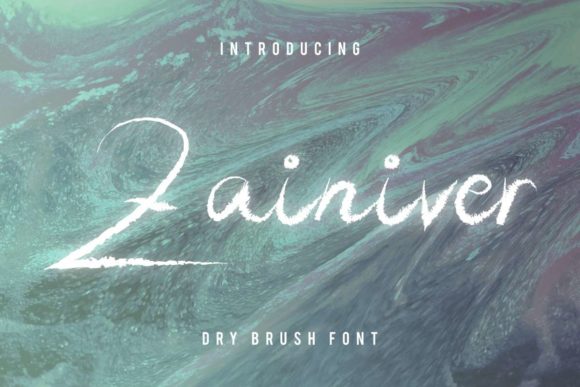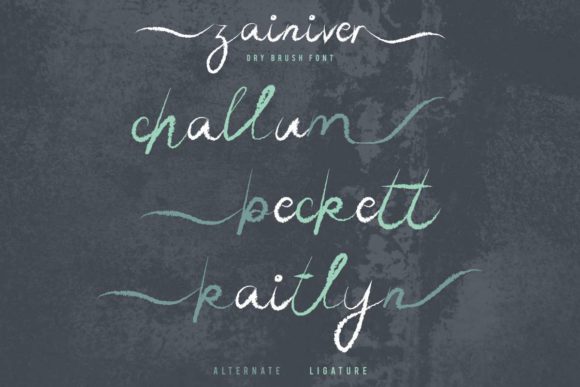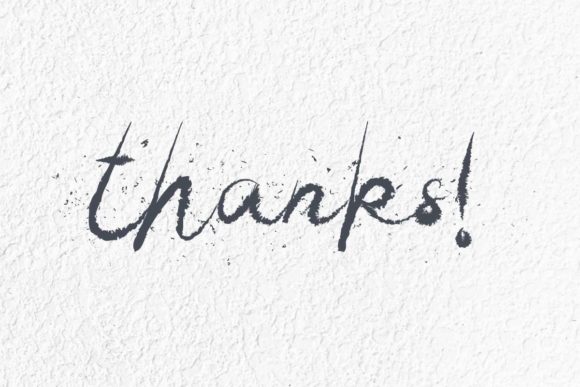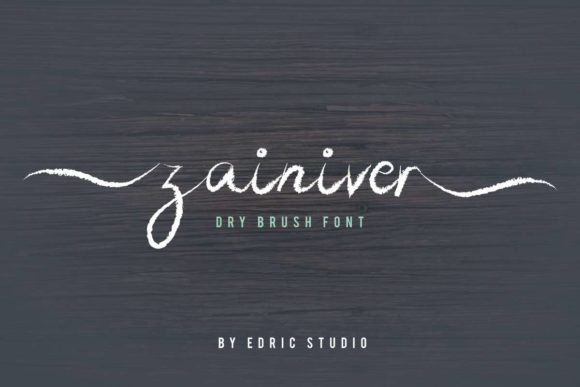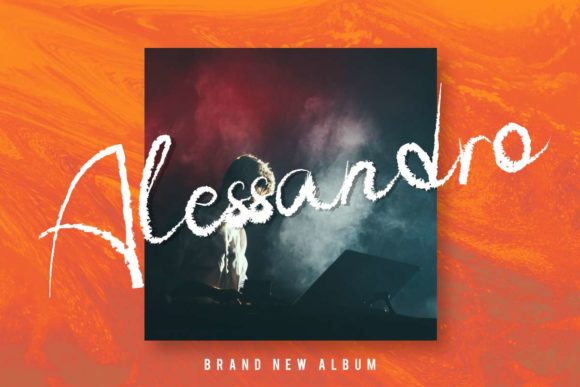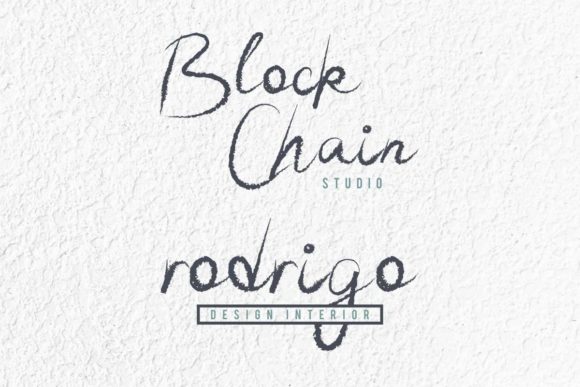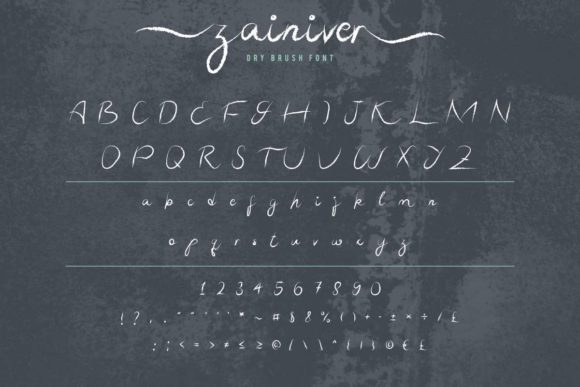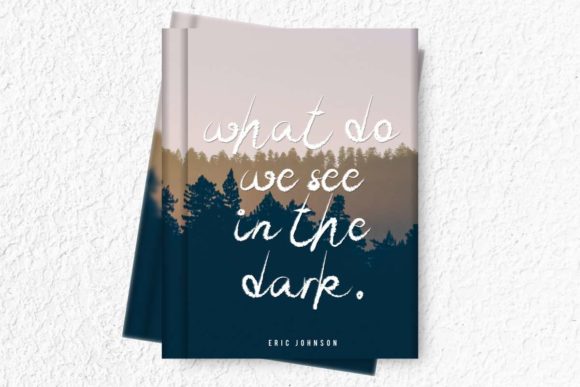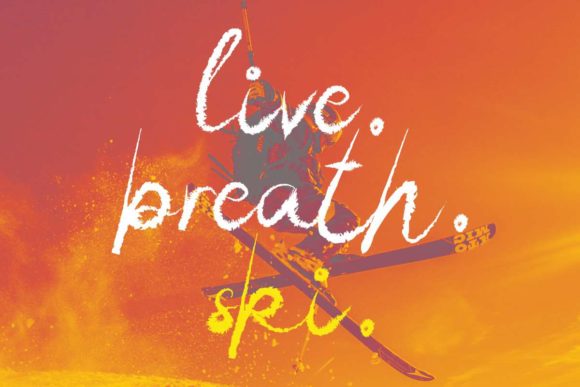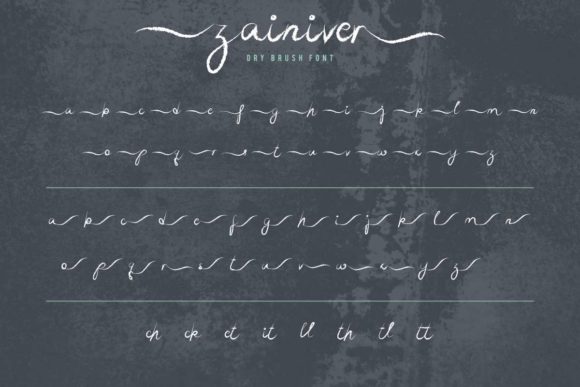
Zainiver Font
About Zainiver Font
Zainiver is a casual, fun script font, created by using a brush pen. This font is the perfect fit for all of your logos, branding, social media, and crafty DIY projects.